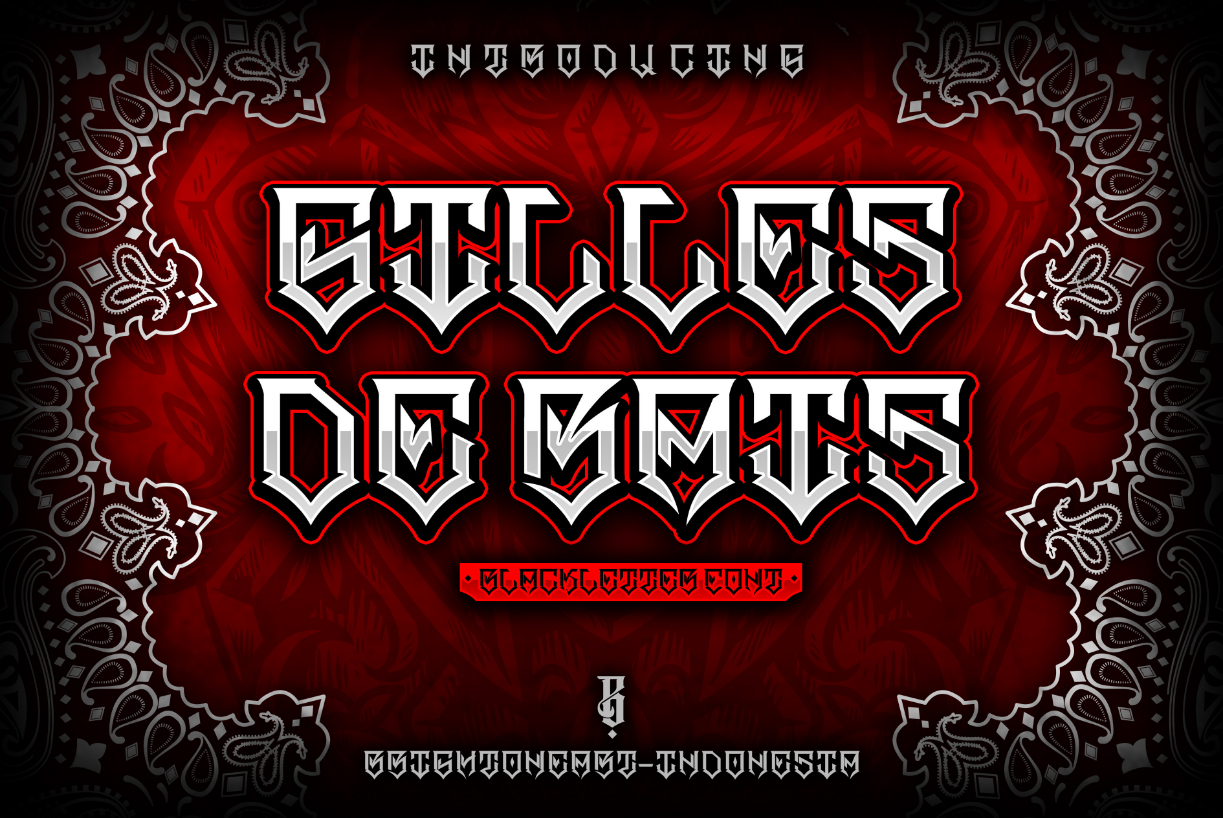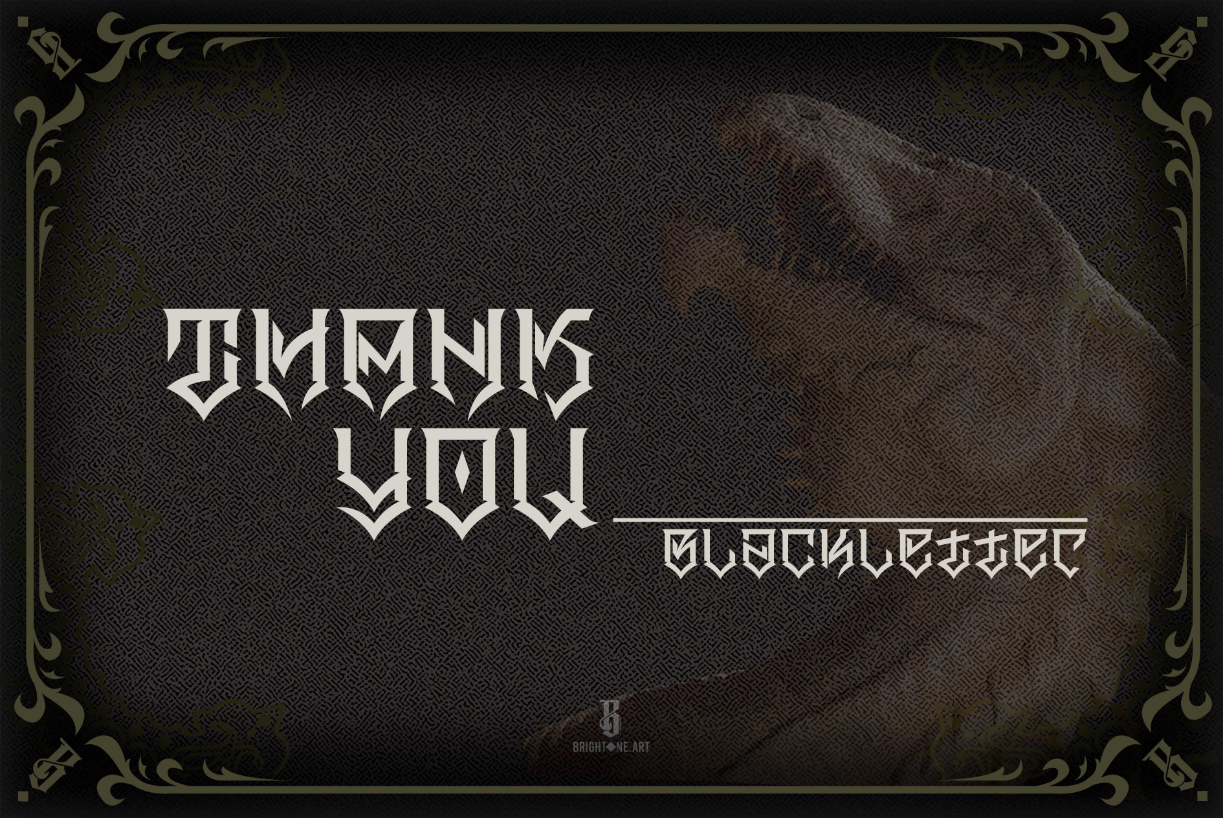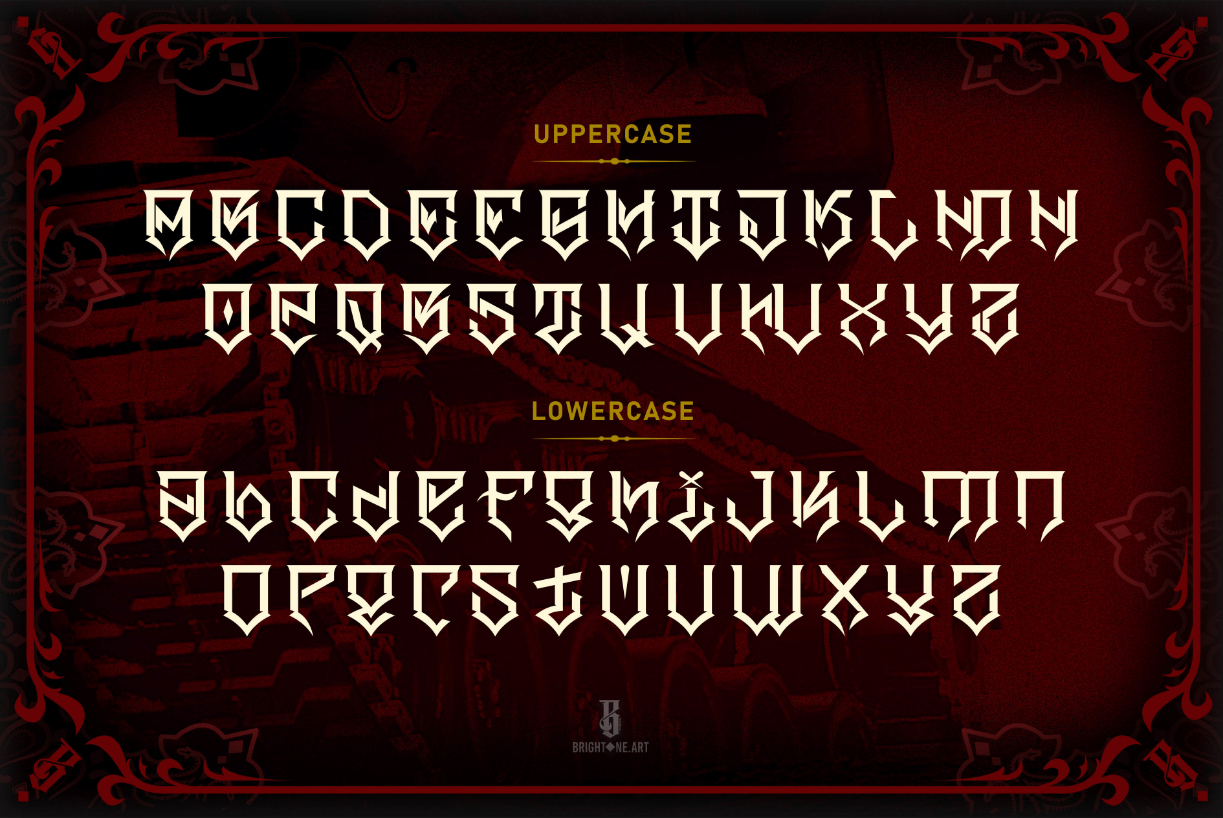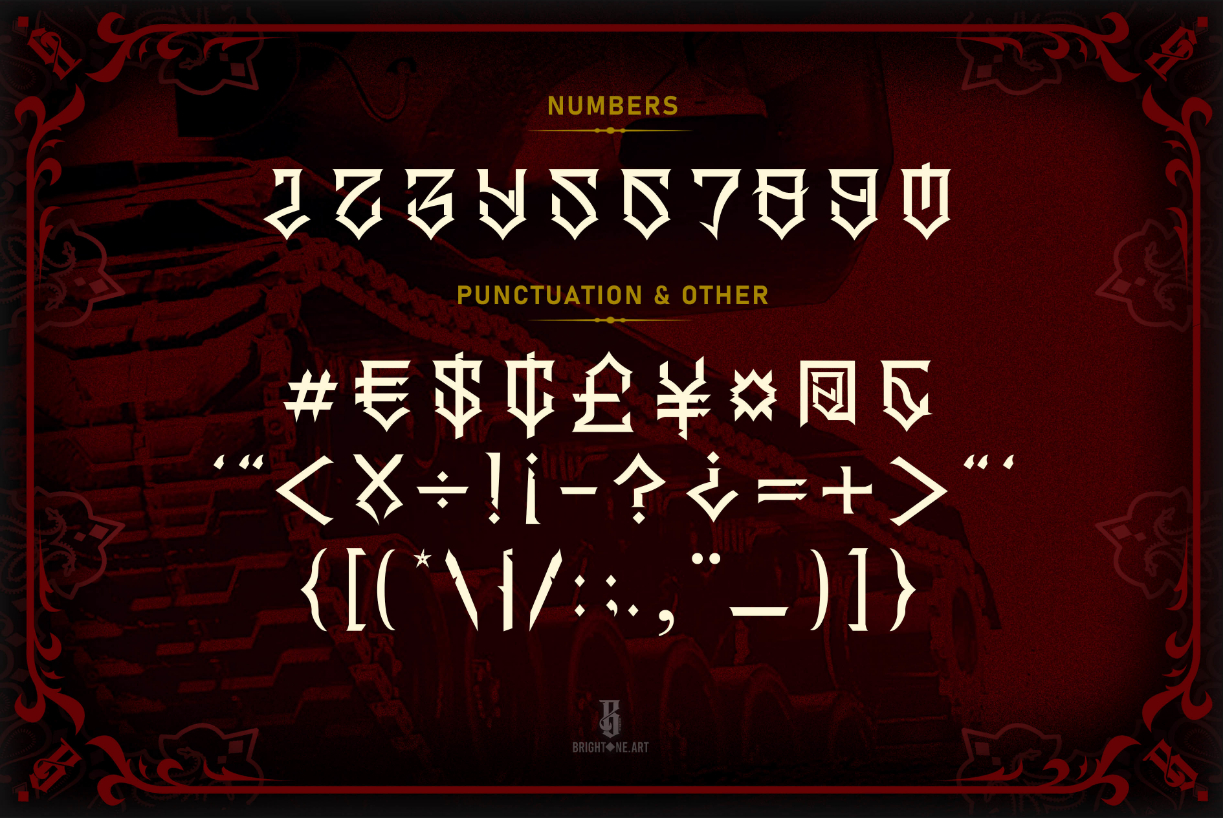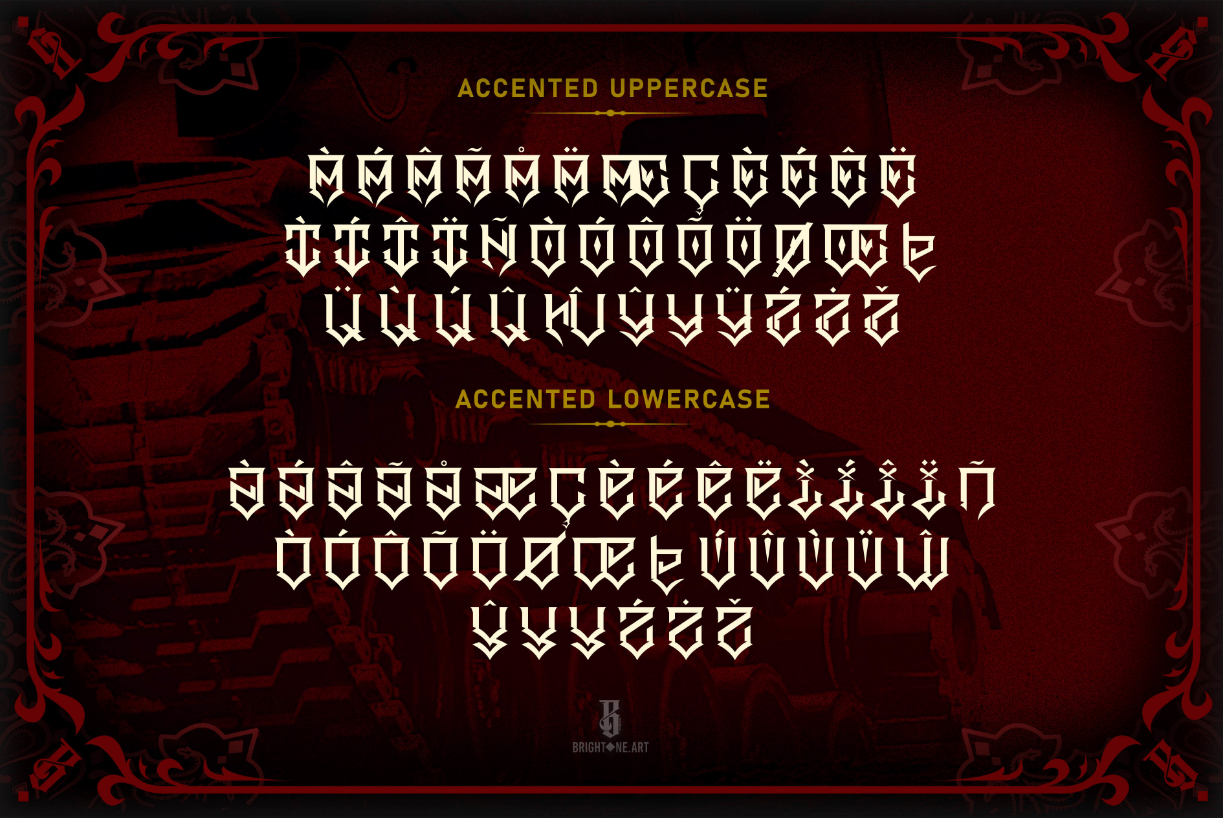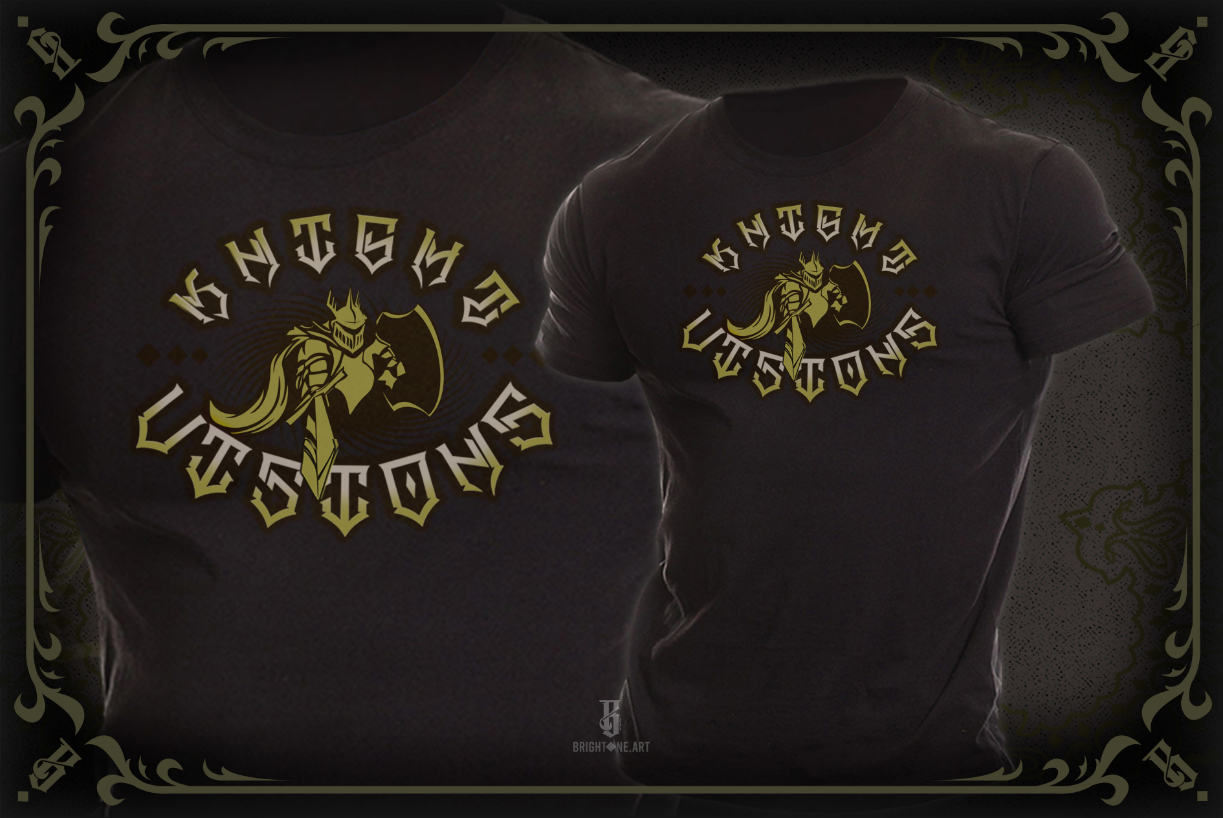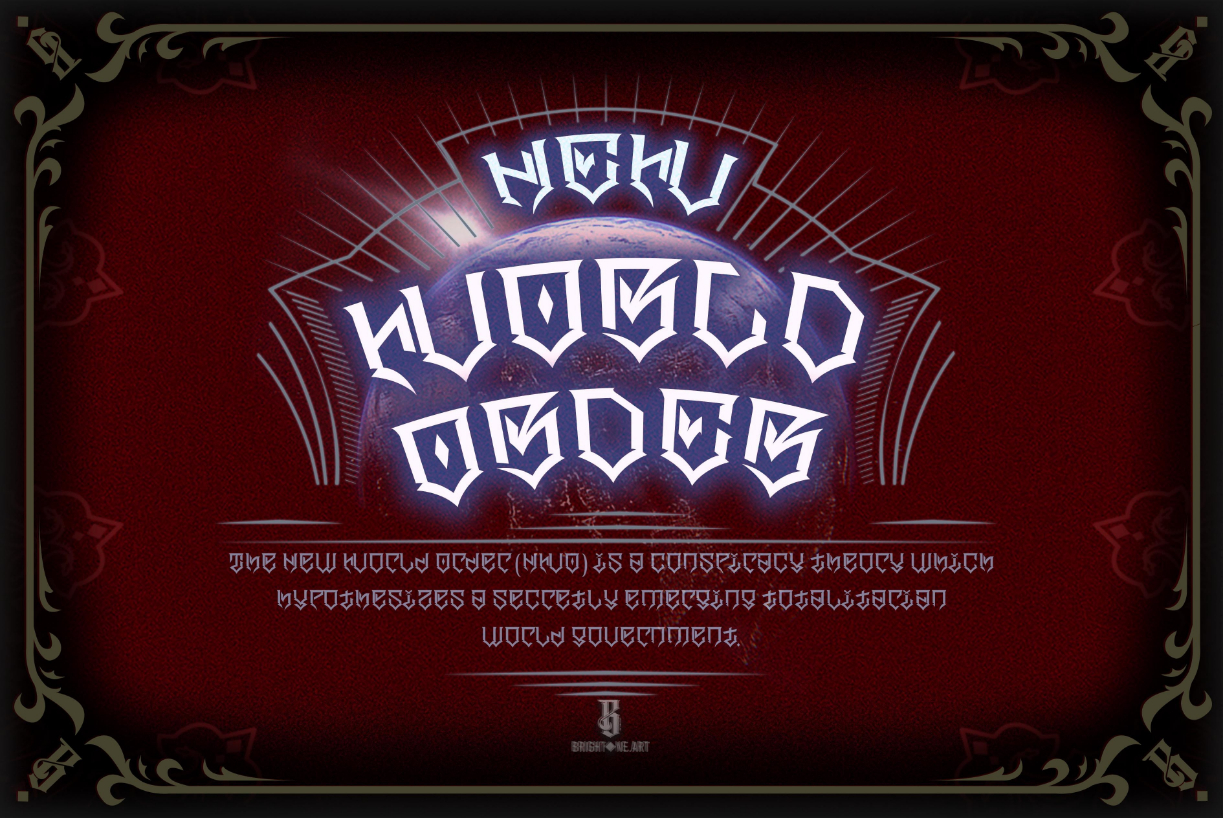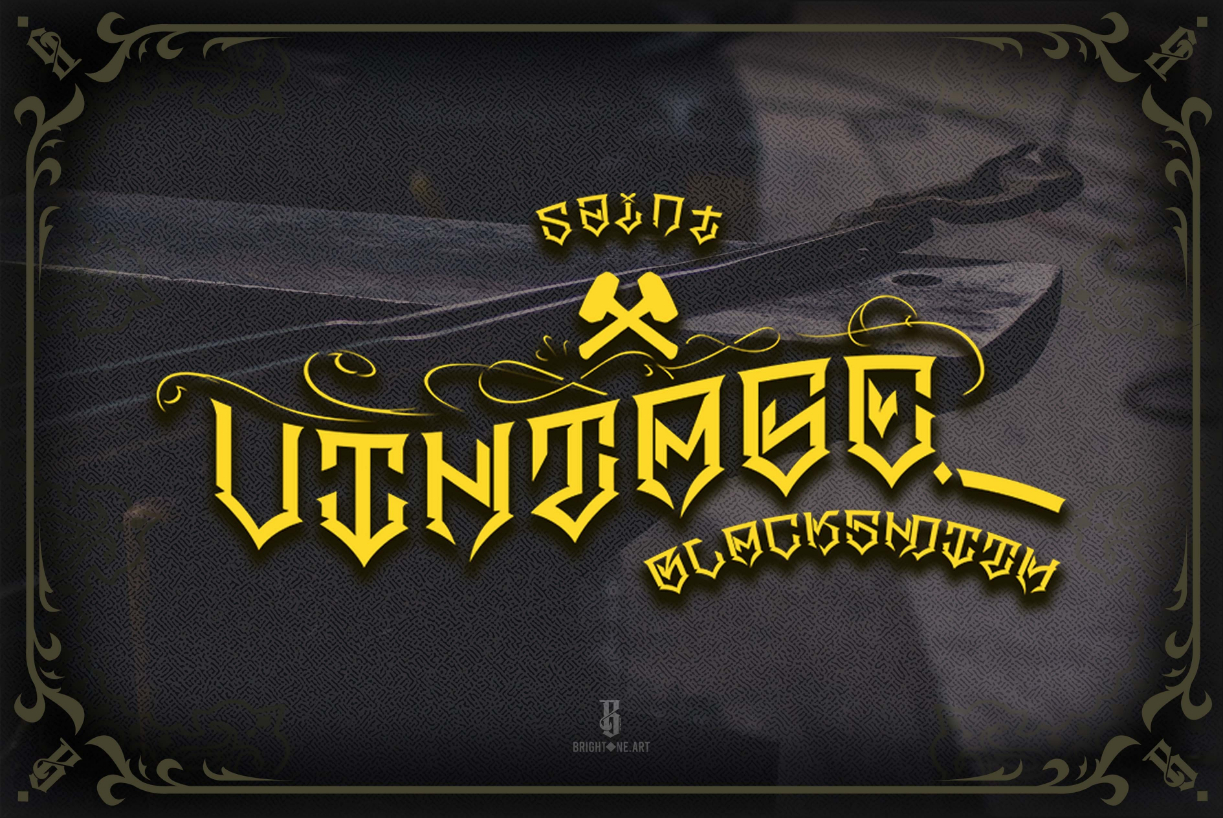
Gilles De Rais Font
About Gilles De Rais Font
Gilles De Rais is a thick lettered, bold and authentic blackletter font. Add this assertive font to your formal designs and notice how they instantly stand out.